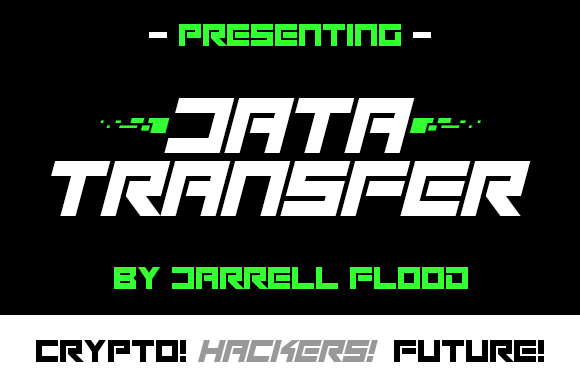
Introducing Data Transfer: The Futuristic Display Font for Modern Designs
In the realm of design, fonts play a pivotal role in conveying the intended message and aesthetic of a project. For those seeking a font that embodies the essence of modernity, futurism, and cutting-edge technology, Data Transfer is an exceptional choice. This sleek, stylish, and square-style font is tailor-made for a variety of applications, including science fiction and adventure projects, high-tech presentations, and numerous other designs where a contemporary look is desired.
The Essence of Data Transfer
Data Transfer is not just a font; it’s an experience. Its design is deeply rooted in the futuristic and the avant-garde, making it perfect for projects that require a touch of the extraordinary. The square style of Data Transfer gives it a robust and solid appearance, suggesting reliability, strength, and a forward-thinking approach. This font is meticulously crafted to ensure that it stands out in any medium, whether it’s used in digital platforms, print materials, or any other form of visual communication.
Ideal for Science Fiction and Adventure Projects
Science fiction and adventure projects often seek to transport their audience to new worlds, evoke a sense of thrill, and convey a sense of pioneering spirit. Data Transfer, with its futuristic display font characteristics, is perfectly suited for such projects. Its sleek and stylish appearance can enhance the thematic elements of your design, adding a layer of authenticity and engagement. Whether you’re working on a movie poster, a book cover, or a game’s promotional material, Data Transfer can help elevate your project’s visual appeal and thematic coherence.
Enhancing High-Tech Presentations
In the world of high-tech presentations, making a strong visual impact is crucial. The use of a font that communicates innovation, precision, and forward-thinking can significantly enhance the effectiveness of your presentation. Data Transfer, with its square and stylish design, can add a professional yet cutting-edge look to your slides. It’s ideal for tech startups, software launches, and any presentation that aims to showcase a product or idea as modern and revolutionary.
Beyond Science Fiction and Tech: Versatility of Data Transfer
While Data Transfer shines in science fiction, adventure, and high-tech contexts, its versatility means it can be effectively used in a wide range of design projects. Its unique style can add a distinctive touch to fashion designs, travel brochures, posters, and even branding materials. The font’s ability to convey a sense of modernity and sleekness makes it a valuable asset for designers looking to imbue their work with a contemporary edge.
Why Choose Data Transfer?
- Unique Futuristic Style: Offers a fresh and modern look that can set your project apart.
- Versatility: Suitable for a wide range of projects, from science fiction to high-tech presentations and beyond.
- High Readability: Despite its futuristic design, Data Transfer maintains high readability, making it practical for various applications.
Data Transfer is more than just a font; it’s a design statement. Its futuristic, sleek, and stylish square style makes it an invaluable resource for designers and crafters working on projects that demand a modern and cutting-edge visual identity. Whether you’re delving into the realms of science fiction, crafting a high-tech presentation, or simply looking to add a contemporary flair to your design, Data Transfer is poised to elevate your work to new heights. Embrace the future of design with Data Transfer and make your projects stand out in a world where visual communication reigns supreme.